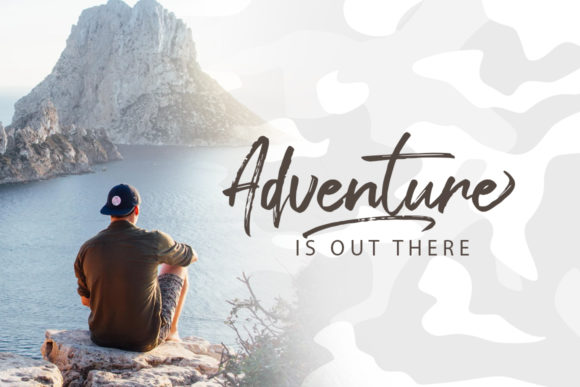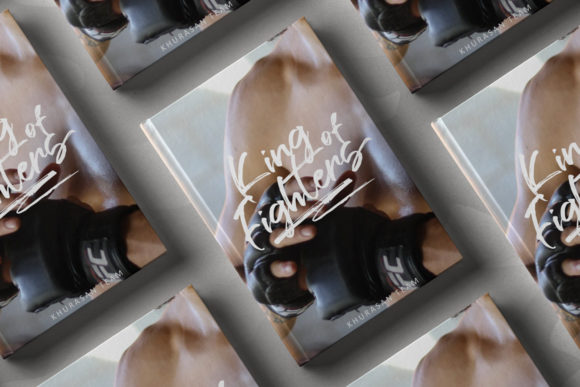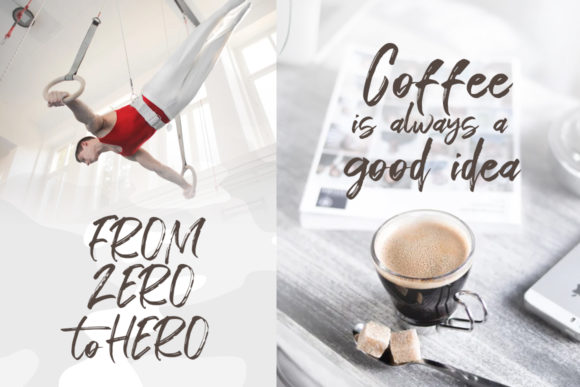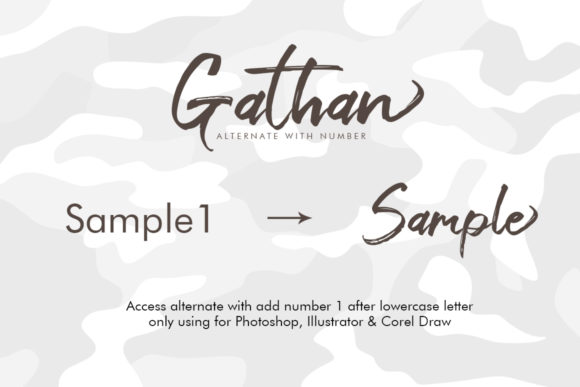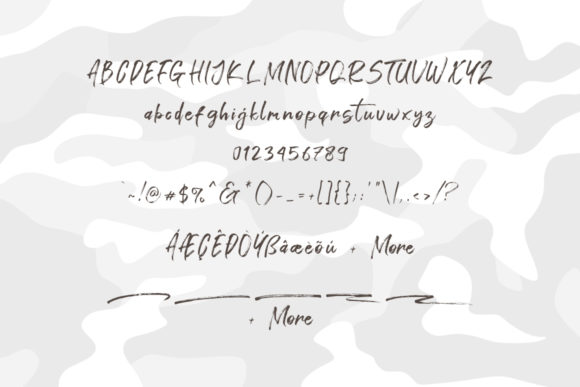
The Enchanting Gathan Font: A Designer’s Delight
I still remember the time I was working on a wedding invitation project, and my client asked for a font that was both elegant and charming. I scoured the internet, tried out countless fonts, but nothing seemed to fit the bill. That was until I stumbled upon the Gathan font. It was love at first sight! ✨ The elegant, cursive script seemed to dance across the page, adding a touch of sophistication and whimsy to the design.
- ✨ Elegant and charming handwritten aesthetic
- ✅ Perfect for wedding invitations, thank you cards, and greeting cards
- ✅ Works beautifully for logos, business cards, and quotes
- ⚠️ Limited availability of stylistic alternates
- 🤔 May not work well with very bold or bright color schemes
The Story Behind Gathan
Gathan is a beautiful, handmade font that’s inspired by traditional calligraphy. The designer, a talented typographer, created Gathan as a way to bring a touch of elegance and whimsy to digital designs. With its intricate lettering and flowing script, Gathan is the perfect font for designers who want to add a personal touch to their work.
Q: What type of designs is Gathan best suited for?
A: Gathan is perfect for designs that need a touch of elegance and whimsy, such as wedding invitations, thank you cards, quotes, and greeting cards.
Q: Is Gathan a difficult font to read?
A: No, Gathan is highly legible, even at smaller font sizes. However, it’s best to use it for designs that don’t require a lot of body text.